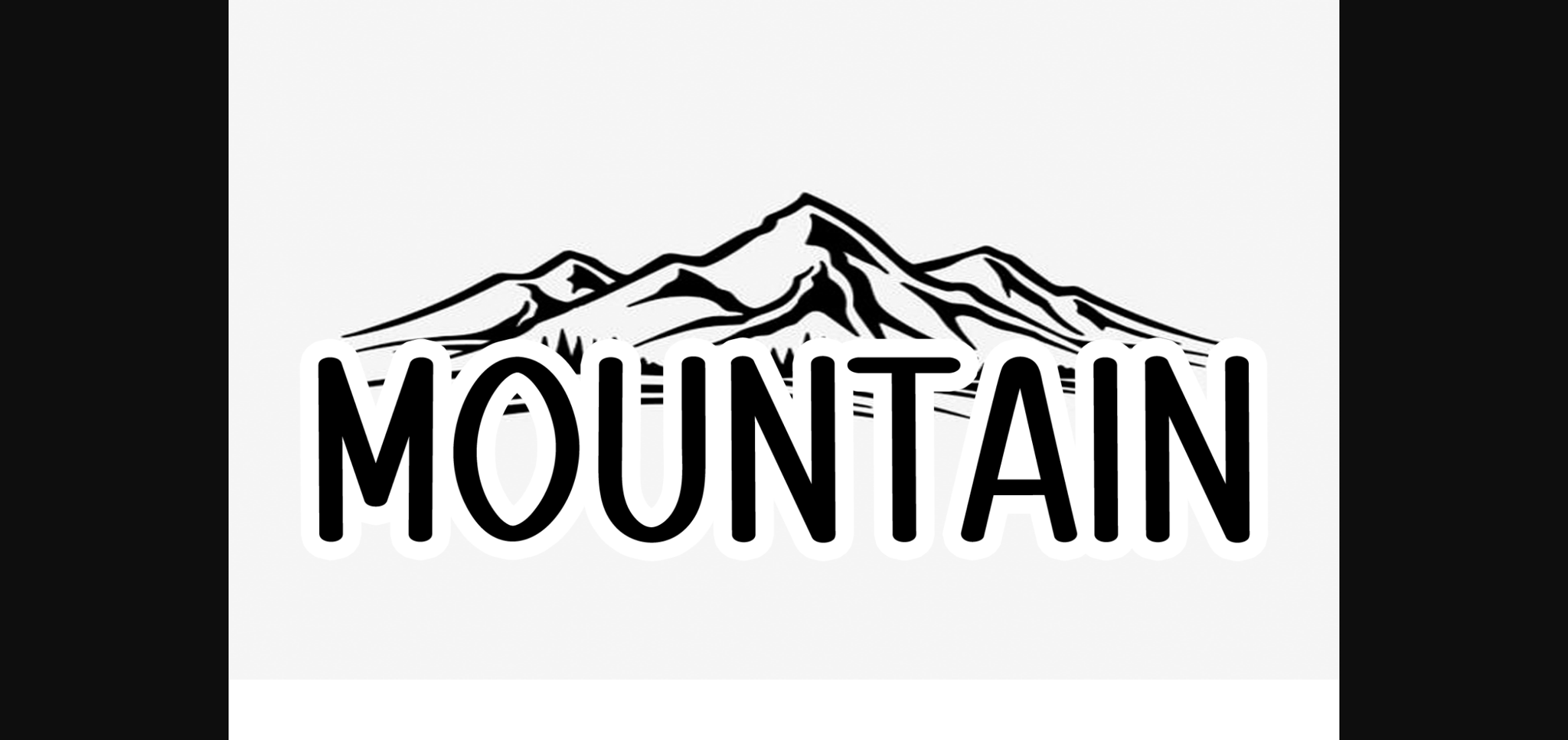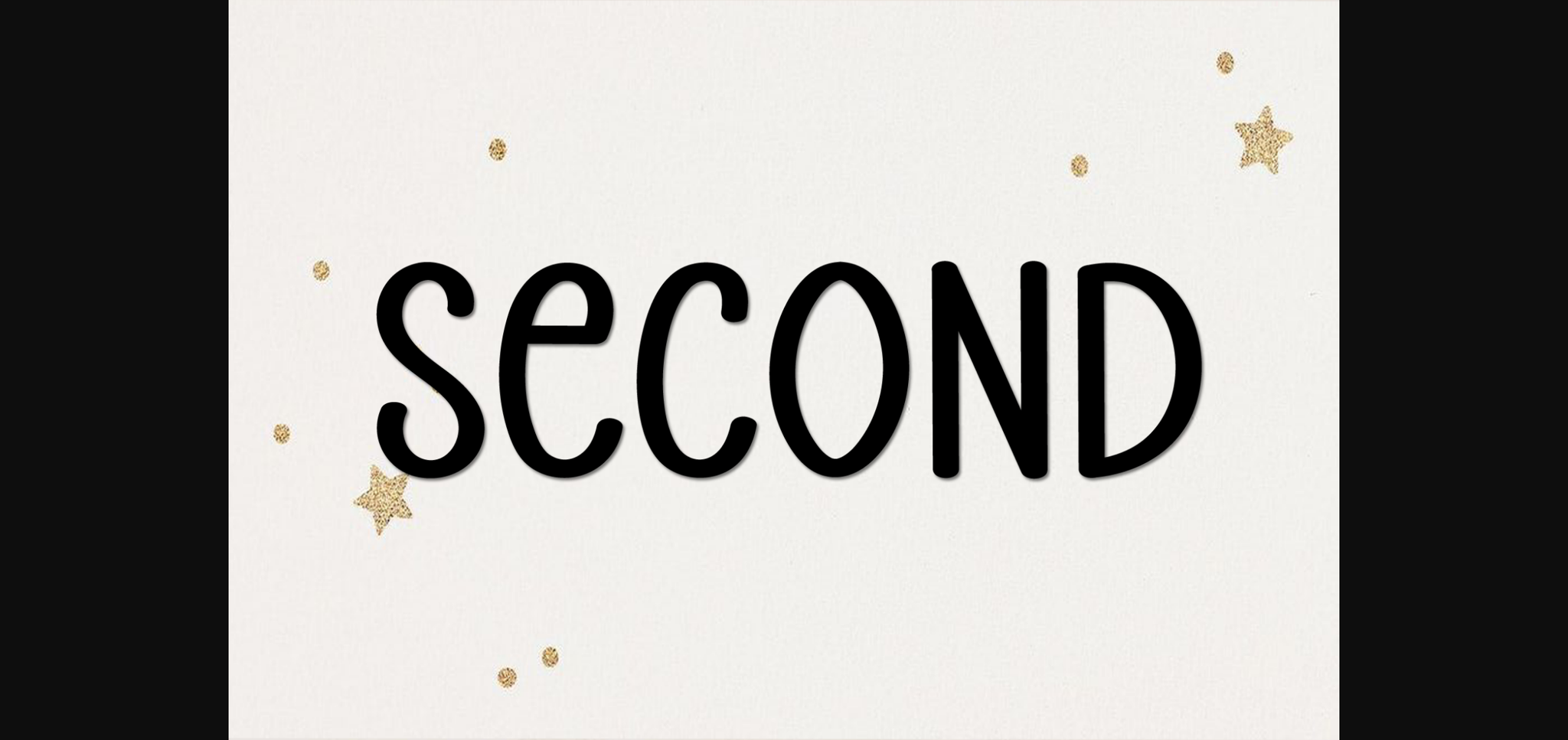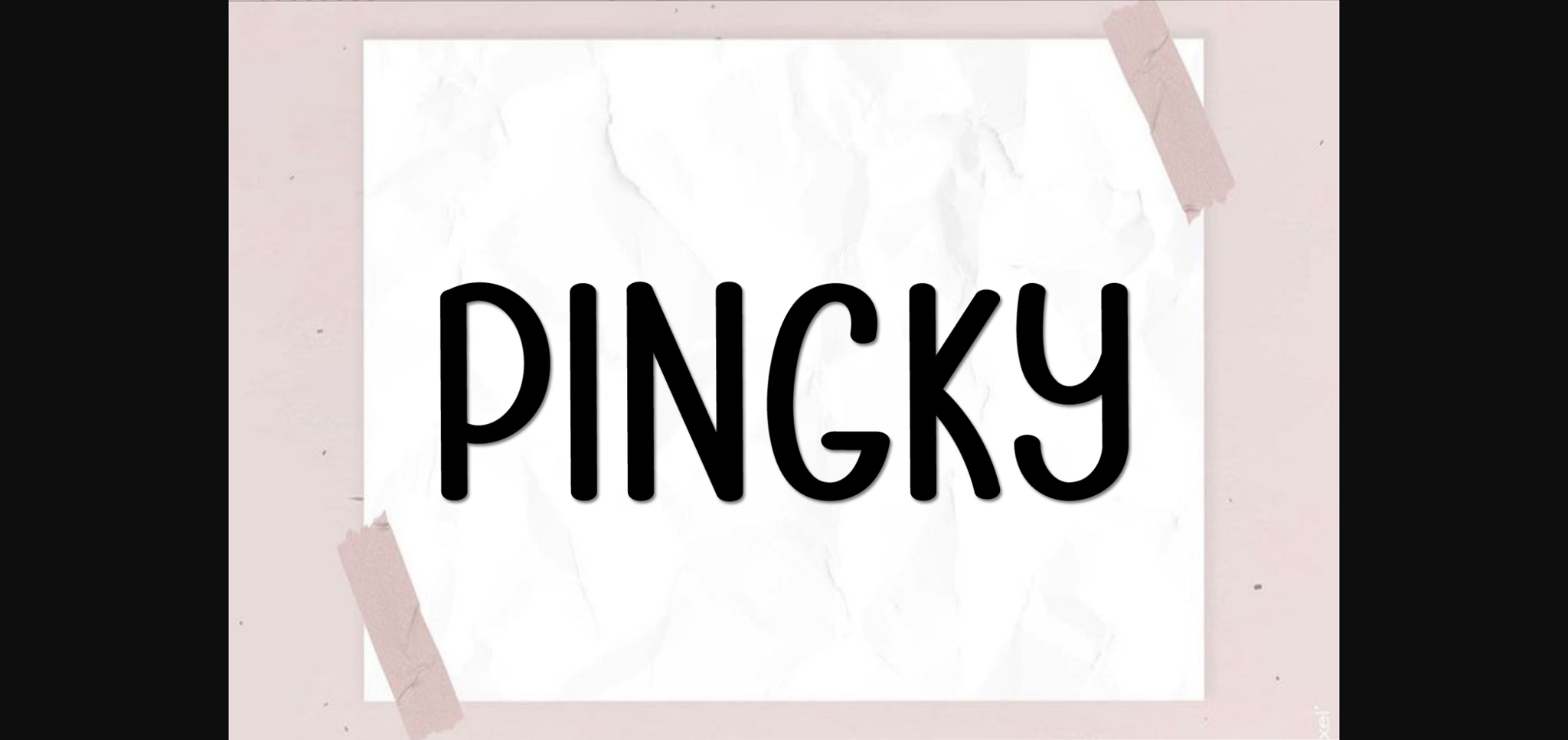
About Mountain Font
Mountain is a classic and simple sans serif font created in a random and freestyle.
It is suitable for logotypes, headlines, corporate identity, brand identity, the apparel industry, posters, music, movies, games, magazines, books, comics, cartoons, YouTube, Instagram, websites, or any of your creative design projects.